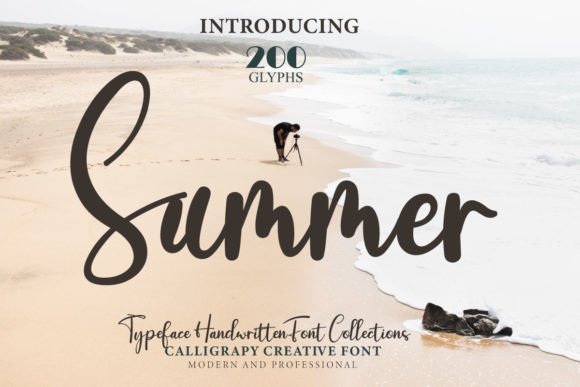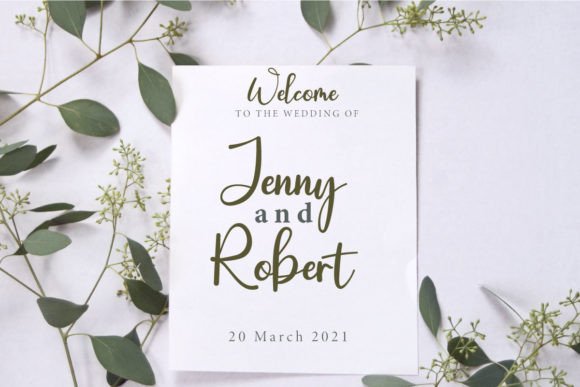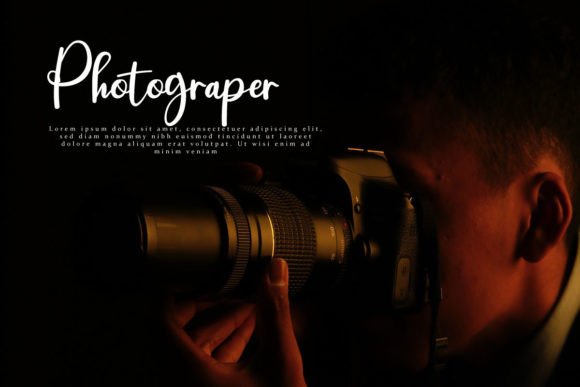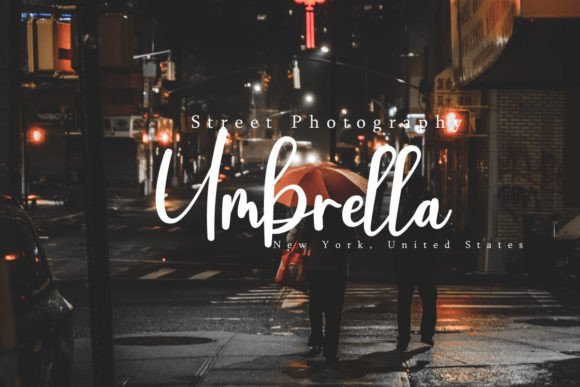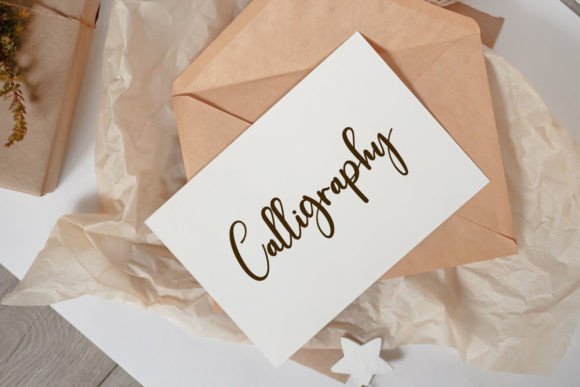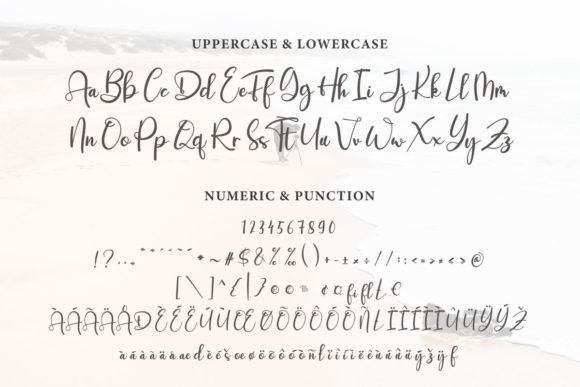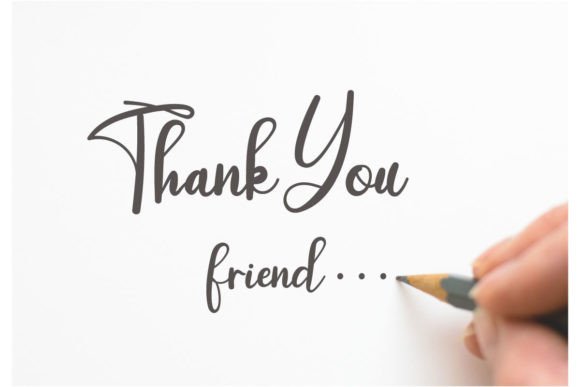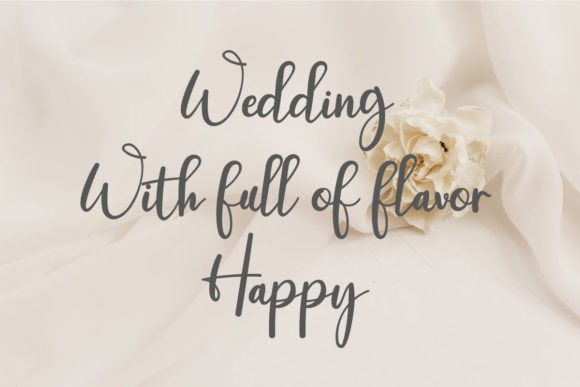
Summer Font
About Summer Font
“Summer” is not just a font; it’s a beautiful handwritten script that adds a touch of warmth and charm to your designs. Designed with care, this font is versatile and can be used across a variety of creative projects, making it an excellent choice for wall displays, wedding invitations, social media posts, logos, advertisements, product packaging, product designs, labels, photography, watermarks, invitations, stationery, and any project that demands impressive typography.
The beauty of “Summer” lies in its handwritten charm. Whether used for wedding invitations, where its elegance enhances the romantic feel, or on social media posts, where it adds a personal touch to your messages, this font adapts seamlessly to various design contexts.
Imagine “Summer” gracing product packaging, where its impressive typography becomes a key element in communicating the brand identity. Picture it on labels, creating a distinctive and memorable look for your products. Envision this font on advertisements, adding a touch of creativity and style to your promotional materials.
One of the standout features of “Summer” is its ability to bring a sense of joy and lightness to your designs. Its handwritten style adds a personal and human touch, making it inviting and relatable. This makes it suitable for a wide range of projects where impressive typography is not just a necessity but a creative asset.
Whether you’re working on invitations, branding, or any other creative project, “Summer” offers a beautiful and versatile choice. It’s not just a font; it’s a creative companion that allows you to infuse your designs with the essence of a warm and beautiful summer day. Let “Summer” be the impressive typography that elevates your creative endeavors and leaves a lasting impression.